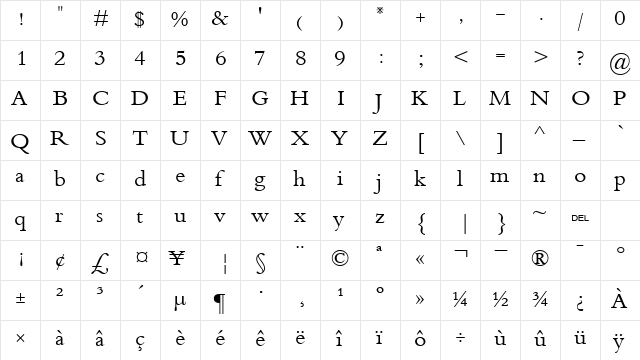
K Dylan Soran Web Regular
Design Context for K Dylan Soran Web Typeface
K Dylan Soran Web offers clean, dependable letterforms without strong stylistic allegiance, making it a practical choice for designers who need flexibility.
Pro Tip: Pair K Dylan Soran Web with a font of contrasting weight or personality to build a more expressive typographic hierarchy.